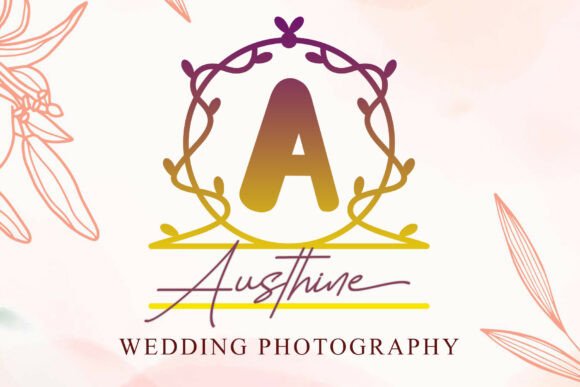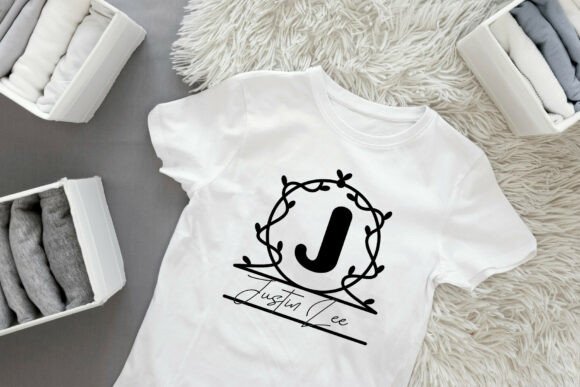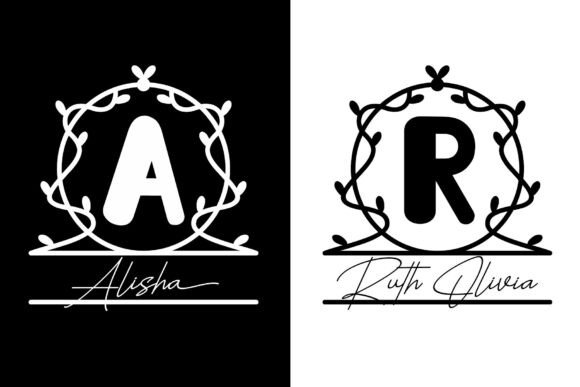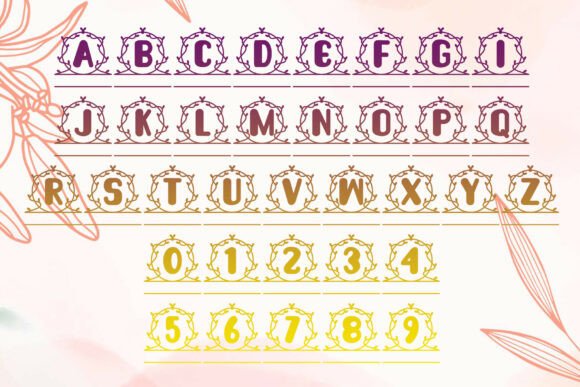
Elevate Your Designs with the Exquisite Besthina Monogram Font
In the world of typography, few fonts manage to convey elegance and sophistication as effortlessly as the Besthina monogram font. This decorative masterpiece is a game-changer for designers and crafters seeking to infuse their high-end branding, personalized designs, and luxury projects with a touch of refined charm. The Besthina monogram font is not just a typeface; it’s an experience, a statement of luxury and attention to detail that speaks volumes about the brand or individual it represents.
The Artistry of Besthina Monograms
What sets Besthina apart is its unique design philosophy. Each letter and number is meticulously framed within an intricate, vine-inspired wreath. This thoughtful approach combines refined symmetry with organic flourishes, creating a visually stunning effect that is both balanced and dynamic. The clean, bold letterforms provide a solid foundation, while the graceful, nature-inspired borders add a layer of sophistication and whimsy. The result is a timeless aesthetic that resonates with luxury and elegance.
Versatility Across Applications
The versatility of the Besthina monogram font is one of its most compelling attributes. Its applications are vast and varied, making it an invaluable asset for a wide range of projects. Whether you’re designing:
- Wedding Invitations: Add a touch of romance and luxury to your wedding stationery with bespoke monograms that set the tone for a sophisticated celebration.
- Luxury Logos: Elevate your brand’s visual identity with a custom monogram that exudes elegance and refinement.
- Stationery: Transform your personal or business stationery into a statement of style with intricately designed monograms.
- Custom Gifts: Personalize gifts with a touch of luxury, making them truly unforgettable.
Seamless Integration Across Mediums
In today’s digital age, the adaptability of a font across different mediums is crucial. The Besthina monogram font is designed with this need in mind, featuring a gradient-friendly design that ensures it looks stunning in both digital and print projects. This adaptability means your monograms will stand out with equal charm and refinement on a website, social media, or in a printed brochure, providing a consistent and professional brand image across all platforms.
Why Designers and Crafters Love Besthina
Designers and crafters are drawn to the Besthina monogram font for several reasons:
- Ease of Use: Despite its intricate design, Besthina is user-friendly, making it accessible for creatives of all skill levels.
- Customization: The font’s design allows for a high degree of customization, enabling users to create unique monograms that fit their project’s specific needs.
- Support for Various Languages: Besthina offers support for multiple languages, making it a versatile choice for global brands and projects.
The Besthina monogram font is a testament to the power of typography in design. Its elegant, sophisticated aesthetic makes it an ideal choice for anyone looking to add a touch of luxury to their projects. Whether you’re a designer aiming to elevate a client’s brand or a crafter seeking to personalize gifts, Besthina offers the perfect blend of style, versatility, and charm. By incorporating the Besthina monogram font into your design toolkit, you’re not just choosing a font; you’re embracing a design philosophy that values beauty, elegance, and the art of making a lasting impression.